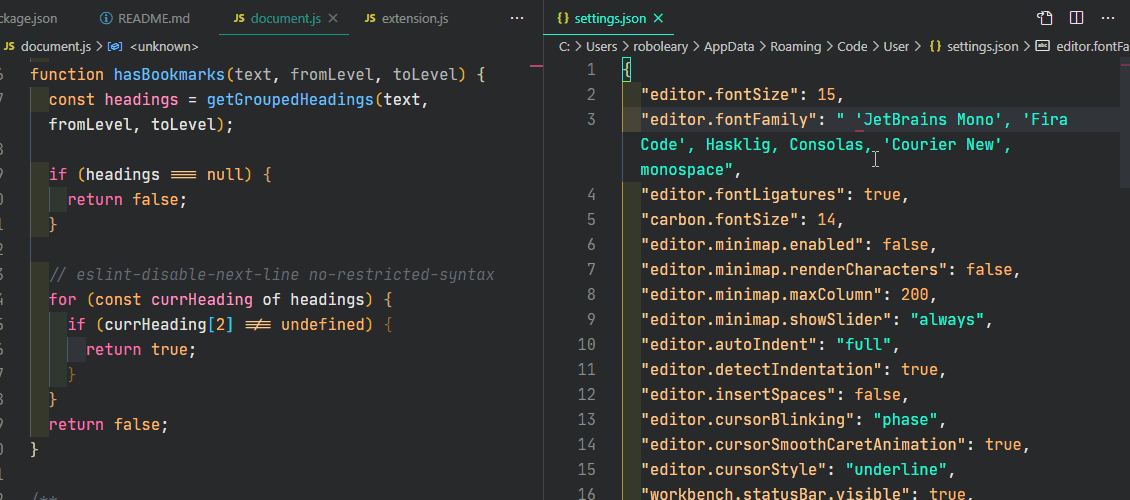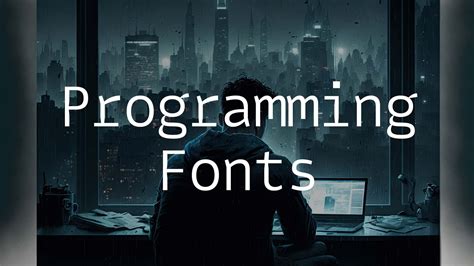
Best Fonts For Vscode. Web 6 best fonts for programming in 2021. Web the 9 best monospace fonts for coding in 2024.
Web having a coding font that works for us while programming reduces our eye fatigue, increases productivity, and makes the code cleaner. Andalé mono was originally designed for apple and ibm's taligent project (image credit: Web 15 best programming fonts for better coding. In this post, we go over our favorite coding fonts and talk. Web the 9 best monospace fonts for coding in 2024. Monolisa features a few unique techniques that increase the legibility and make it visually pleasant to look at. The concept behind fira code is simple: Web 6 best fonts for programming in 2021.
Web 6 best fonts for programming in 2021. Web the 9 best monospace fonts for coding in 2024. Web 15 best programming fonts for better coding. Web having a coding font that works for us while programming reduces our eye fatigue, increases productivity, and makes the code cleaner. In this post, we go over our favorite coding fonts and talk. Web 6 best fonts for programming in 2021. The concept behind fira code is simple: Monolisa features a few unique techniques that increase the legibility and make it visually pleasant to look at. Andalé mono was originally designed for apple and ibm's taligent project (image credit: